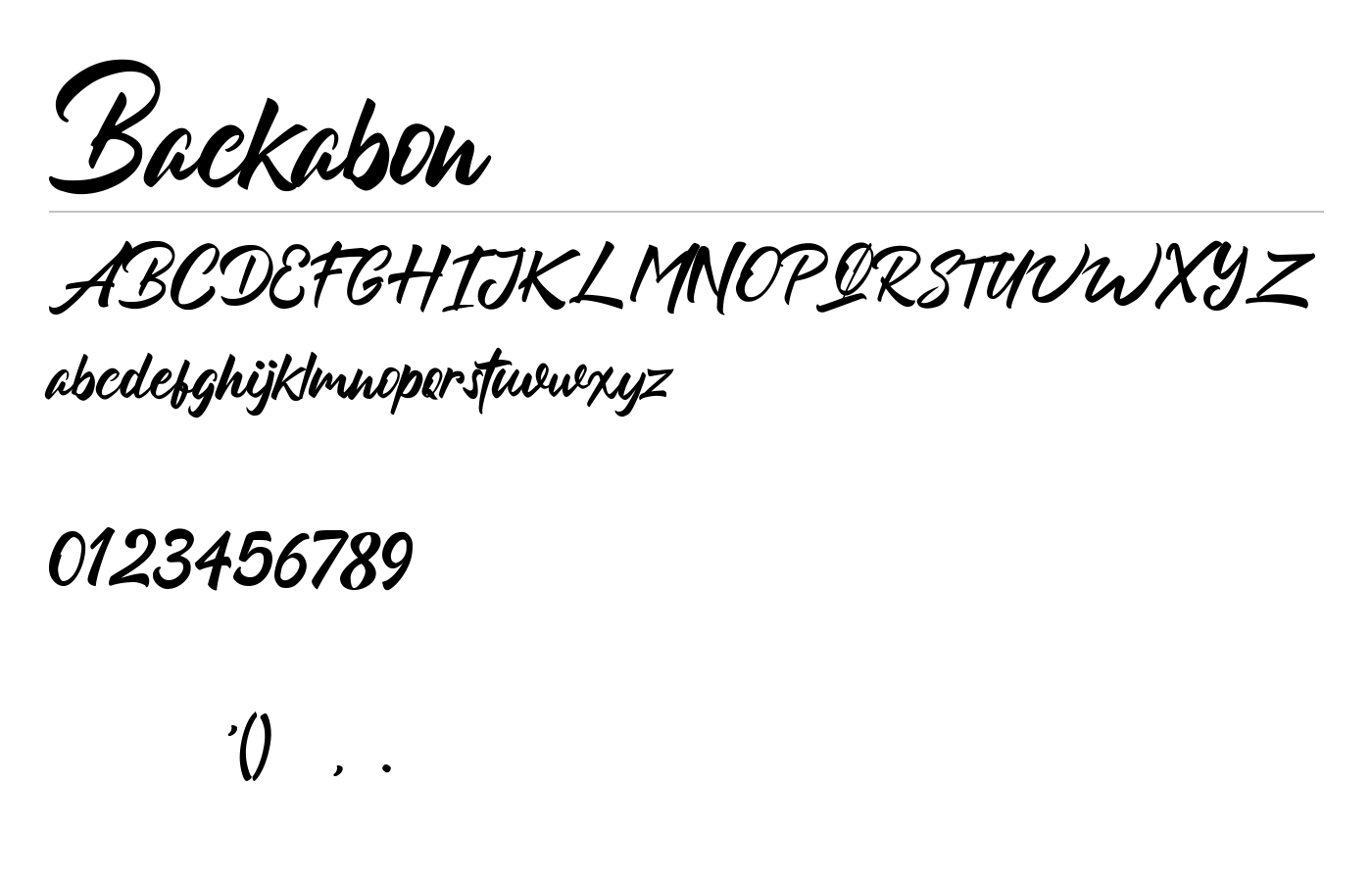
Backabon is a modern script font with a lively, hand-drawn feel characterized by smooth, flowing strokes and moderate contrast. Its casual elegance makes it perfect for branding, invitations, and creative projects where a personal, friendly touch is desired. This font works well in logos and headlines, adding a stylish yet approachable vibe.
Backabon Font